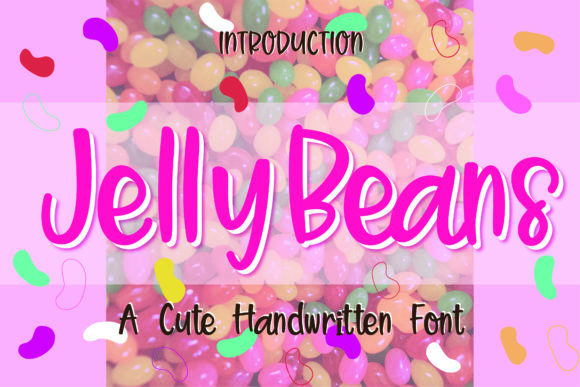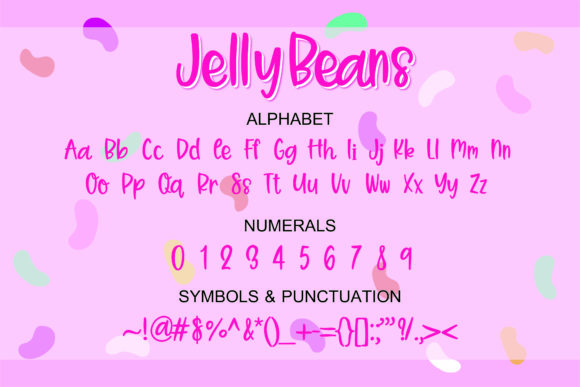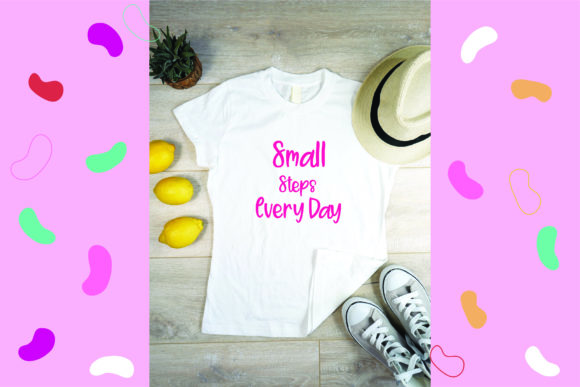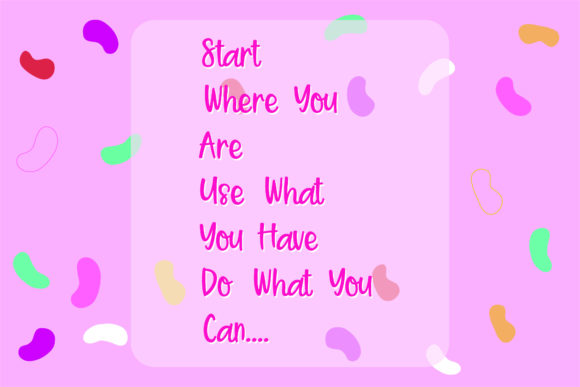
Jelly Beans Font
About the Jelly Beans Font
The wait is over! The incredible Jelly Beans Font is now available for your design toolkit. Jelly Beans is a cute, casual and trendy display font. Whether you are using it for cartoon-related designs, children games, quotes, titles, brand names, book covers, posters, or just any creation that requires a touch of joy, this font is a great choice.
Jelly Beans’ playful, rounded forms make it ideal for headlines, short bursts of text in posters or social media graphics, and branding for children’s products or businesses with a youthful, fun image. Its casual nature also lends itself well to packaging design for sweets or toys. However, its low x-height and informal style make it unsuitable for body text or lengthy paragraphs, and it would be a poor choice for UI elements where readability is paramount.
For optimal visual harmony, pair Jelly Beans with a clean sans-serif like Open Sans for a balanced contrast, or a more geometric sans-serif such as Futura for a modern feel. A playful script font could add another layer of whimsy, but ensure legibility by using it sparingly. Avoid pairing it with overly serious or formal typefaces.
The overall personality of Jelly Beans is undeniably cheerful and approachable. It evokes a sense of fun and lightheartedness, making it an excellent choice for projects aiming to convey joy, creativity, and approachability.
Jelly Beans Font Usage Examples
Jelly Beans Font Example